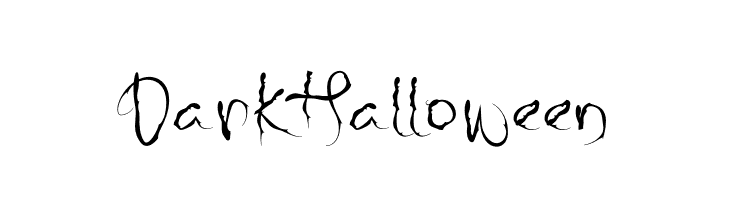
A bold, 3D dripping font perfect for Halloween themes.
A spooky, dripping font perfect for Halloween themes.
A spooky, jagged font perfect for Halloween themes.
A whimsical, Halloween-themed font with scarecrow silhouettes and hand-drawn style.
A playful, spooky handwritten font ideal for Halloween themes.
A playful, spooky font with quirky, irregular letterforms and Halloween motifs.
A spooky, dripping font perfect for Halloween themes.
Halloween-themed decorative dingbat font with bold, spooky icons.
A spooky, dripping font perfect for Halloween themes.
A bold, handwritten italic font with a playful, Halloween-themed style.
A bold, angular font with a spooky, Halloween-inspired aesthetic.
A decorative Halloween-themed font with spooky silhouettes and playful designs.
A bold, angular font with a spooky, playful Halloween theme.
A playful, spooky font with jagged, uneven strokes, perfect for Halloween themes.
A spooky, bone-themed font perfect for Halloween projects.
A whimsical and playful Halloween-themed icon font.
Hand-drawn Halloween doodle font with cute, playful icons.
A playful, mummy-themed font with bandage-like wraps, perfect for Halloween designs.
A bold, italic Halloween-themed font with bandage-like patterns.
A spooky, jagged font with a dripping effect, perfect for Halloween themes.
A spooky, cobweb-adorned font perfect for Halloween themes.
A spooky, dripping font perfect for Halloween themes.
A whimsical, spooky font with jagged edges and playful curls, ideal for Halloween themes.
A playful, rough-textured font with a spooky, hand-drawn style.
A playful, spooky font with a dripping slime effect, perfect for Halloween themes.
A playful, spooky font with jagged edges and a hand-drawn style, perfect for Halloween themes.
A playful, outlined font with a hand-drawn, whimsical style.
A bold, rounded font with a playful, spooky aesthetic.
A spooky, hand-drawn font with jagged edges and a Halloween theme.
A spooky, dripping font ideal for Halloween themes.